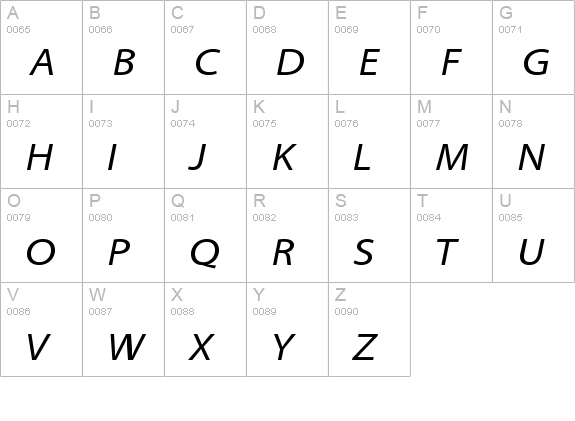
Myriad Pro SemiExtended Italic Font Details
Myriad Pro SemiExtended Italic is a distinctive, italic variant in the Myriad typeface family \xE2\x80\x94 well suited to design and typography projects.
Myriad Pro SemiExtended Italic font is a versatile and elegant typeface that strikes the perfect balance between modernity and sophistication. With its sleek and stylish design, this font exudes a sense of professionalism and creativity, making it the ideal choice for a wide range of design projects. The slanted, italicized version of Myriad Pro SemiExtended adds a touch of flair and dynamism to any text, making it stand out and grab the attention of the reader. Whether used for headlines, body text, or graphic elements, this font conveys a sense of energy and movement that is sure to captivate your audience. What's even better is that Myriad Pro SemiExtended Italic font is available for free download at FontsMarket.com. This means you can easily access and use this high-quality typeface in your projects without any cost. So why wait? Enhance your designs with the sleek and stylish Myriad Pro SemiExtended Italic font today!